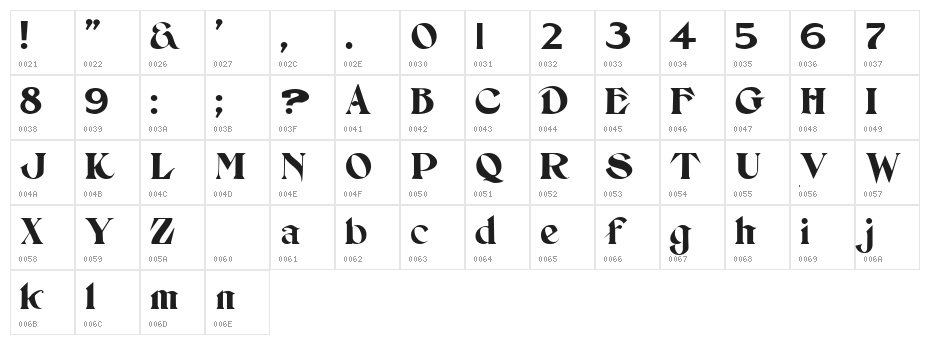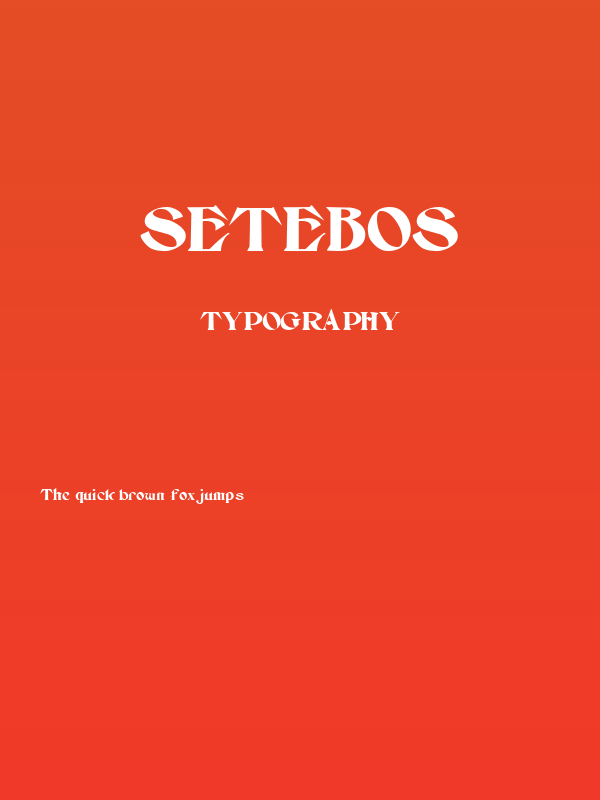
Setebos Font
Setebos Description
This font features a bold and dramatic style, characterized by its sharp, angular serifs and high contrast between thick and thin strokes. The uppercase letters exhibit a strong presence with their wide, commanding forms, while the lowercase letters maintain a cohesive look with slightly more rounded edges. The numerals are equally bold, ensuring readability and impact. Special characters are designed with the same attention to detail, offering a consistent aesthetic throughout. This font's unique style makes it suitable for projects that require a touch of elegance and authority.
Overall StyleClassic
Proposed ProjectsIdeal for branding, headlines, posters, and editorial design.